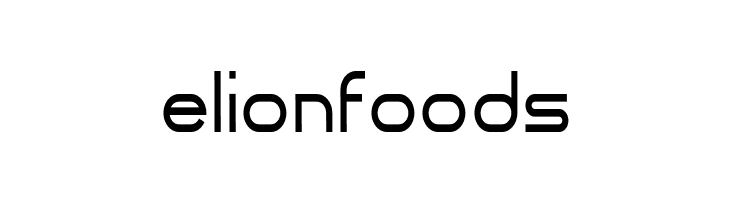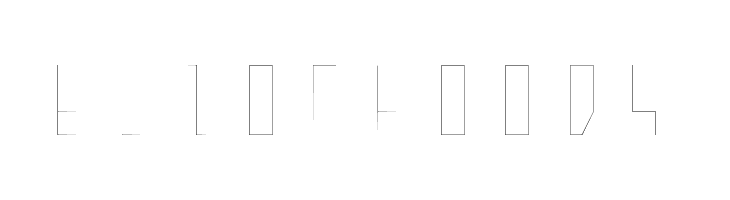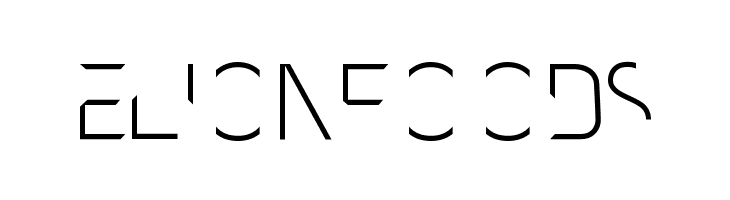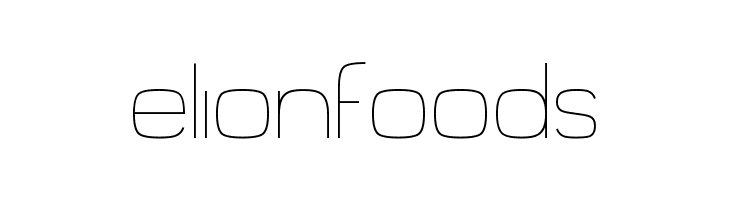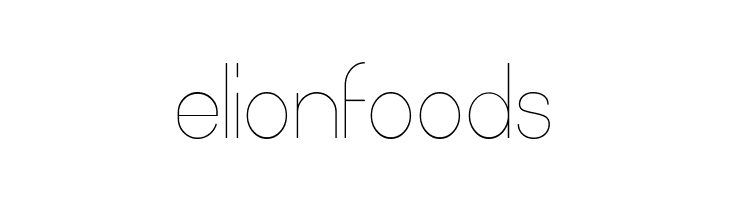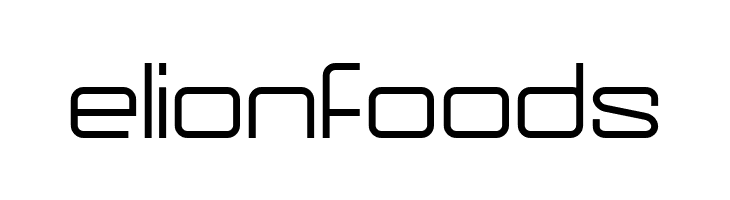
A modern, geometric font with a sleek and futuristic design.
A clean, thin-stroked font with a modern and minimalistic design.
A modern, geometric font with clean lines and minimalist design.
A sleek, modern font with thin, elongated letterforms and a minimalist design.
A minimalist, geometric font with clean lines and a modern aesthetic.
A sleek, modern font with thin, geometric lines and a minimalist design.
A modern, minimalist font with thin lines and geometric shapes.
A modern, geometric font with a clean and minimalistic design.